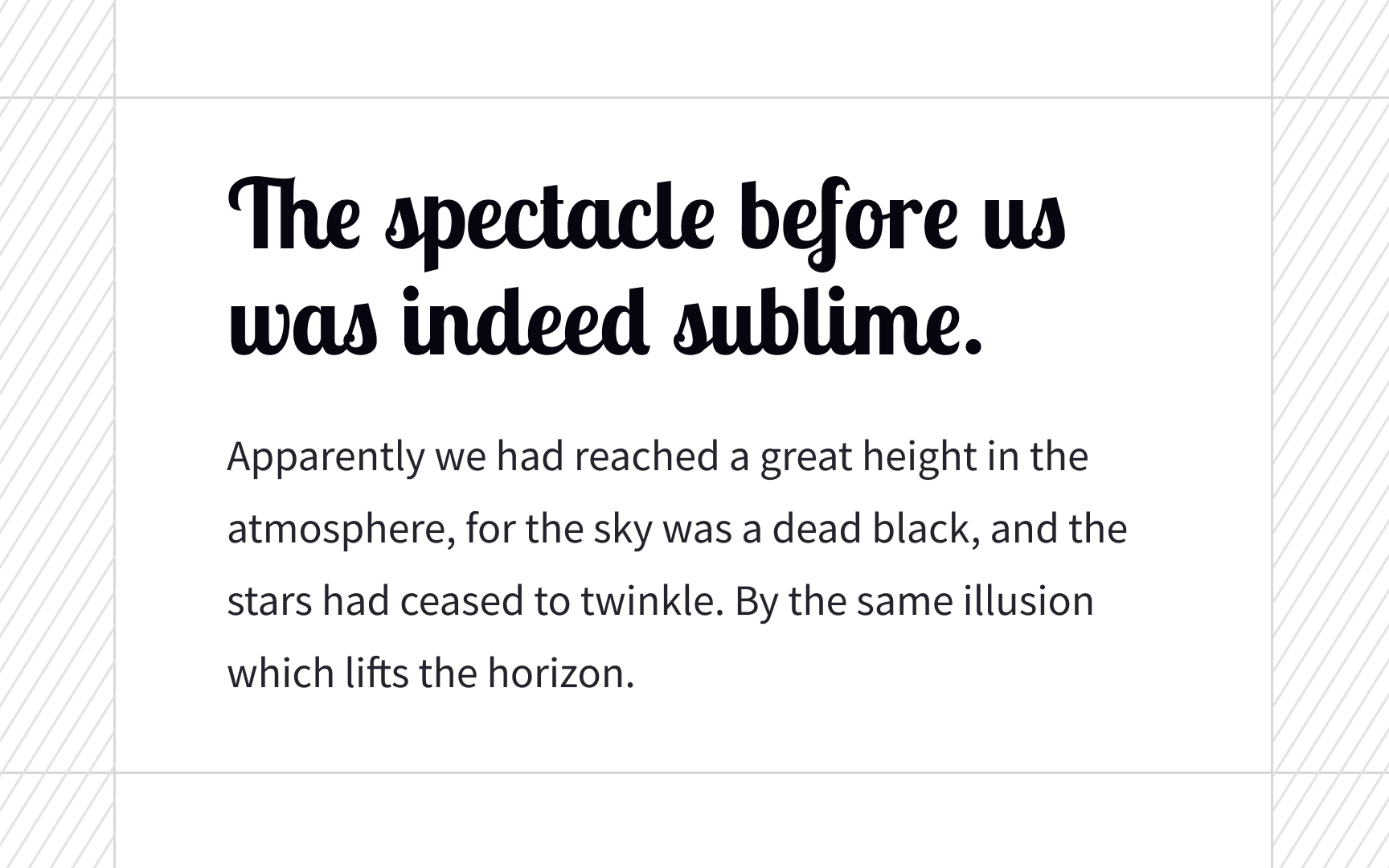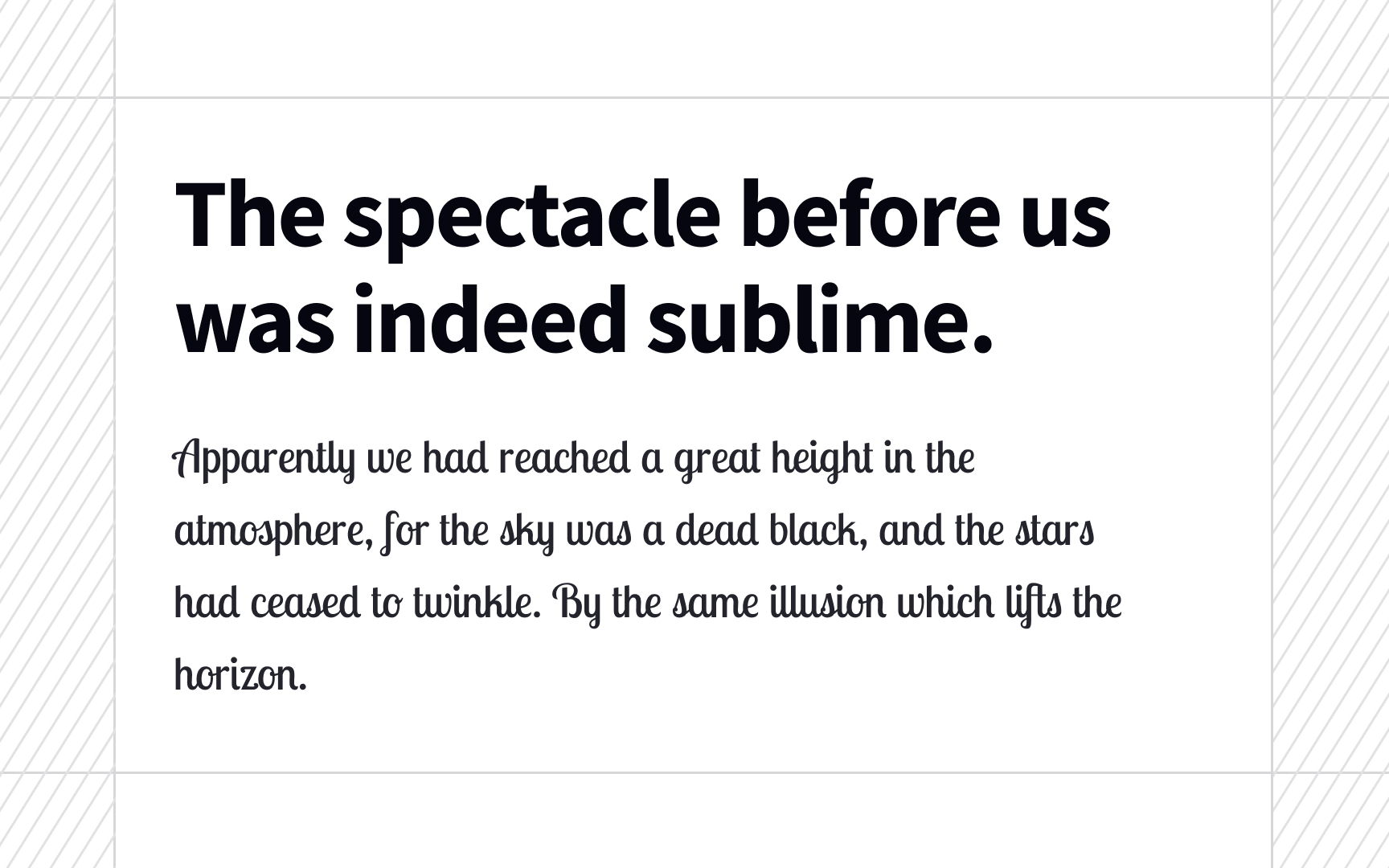
Header vs. body fonts
Certain typefaces are better suited for specific roles based on their design characteristics and legibility at different sizes. Some typefaces have intricate details and fine strokes that may render better at larger sizes, making them ideal for headlines, titles, or display purposes. On the other hand, there are typefaces designed with optimal readability and legibility in mind, making them well-suited for body text or smaller sizes. Assigning roles based on the inherent qualities of a typeface can ensure optimal visual impact and legibility.